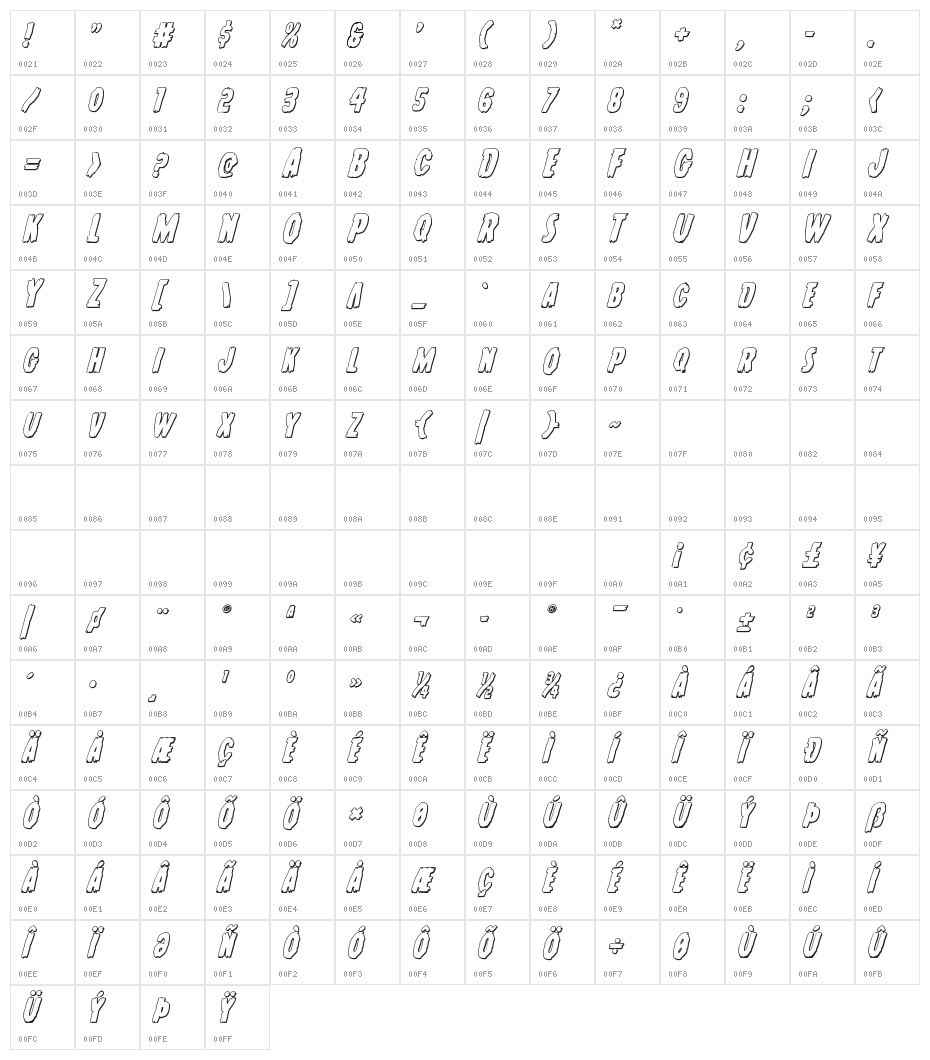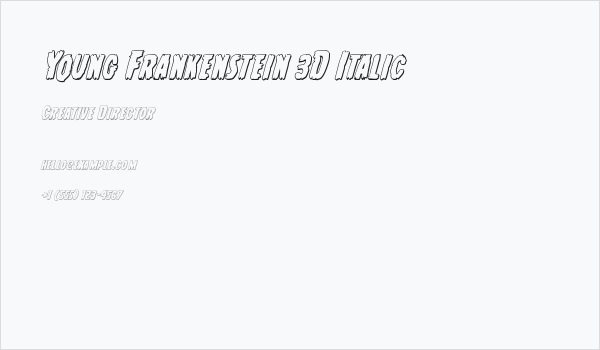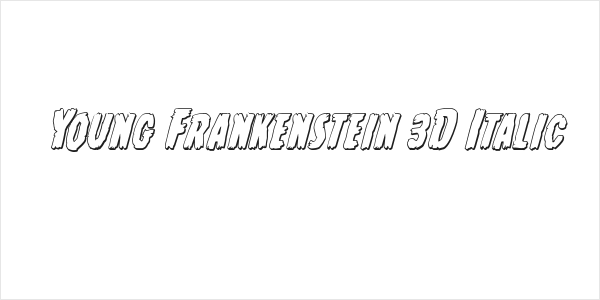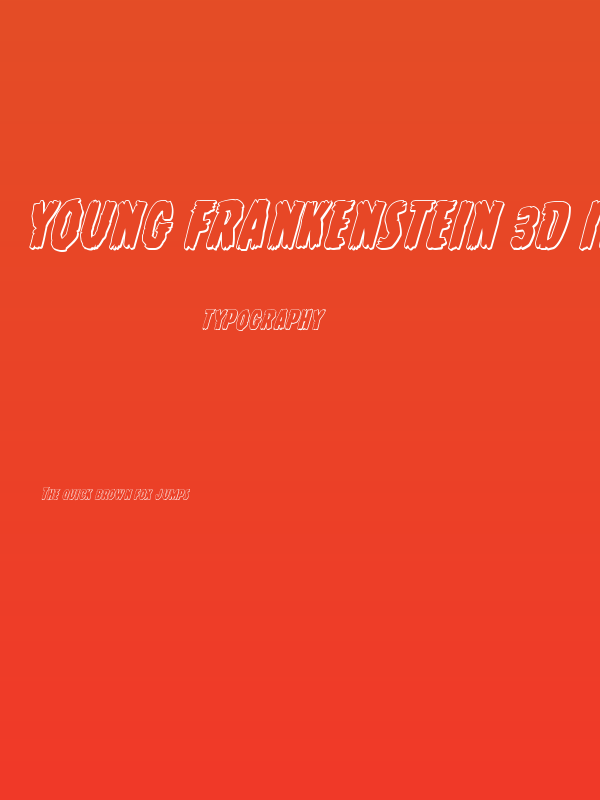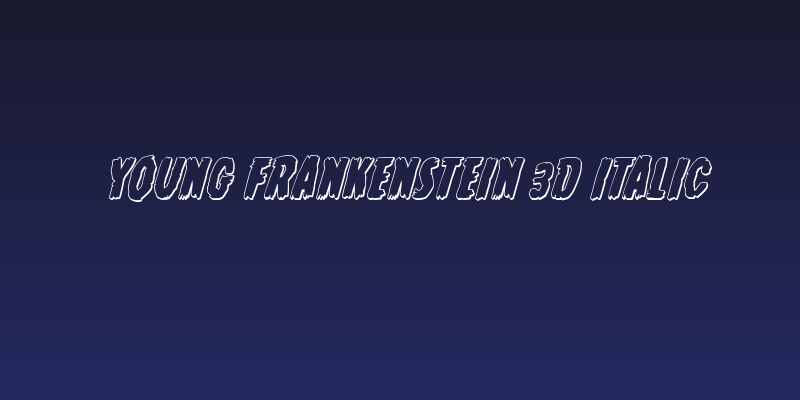
Young Frankenstein 3D Italic Font
Young Frankenstein 3D Italic Description
This font features a bold, energetic style with a 3D effect that gives it a dynamic and eye-catching appearance. The letters are italicized, adding a sense of motion and urgency. The edges are jagged and irregular, reminiscent of a horror or Halloween theme, which adds to its unique character. The font is highly decorative, making it ideal for attention-grabbing headlines or themed designs. The numbers and special characters maintain the same bold and irregular style, ensuring consistency across all elements. The overall look is playful yet slightly eerie, perfect for projects that require a touch of the unconventional.
| Proposed Projects | Perfect for Halloween posters, horror movie titles, themed event invitations, or any project needing a spooky, eye-catching font. |